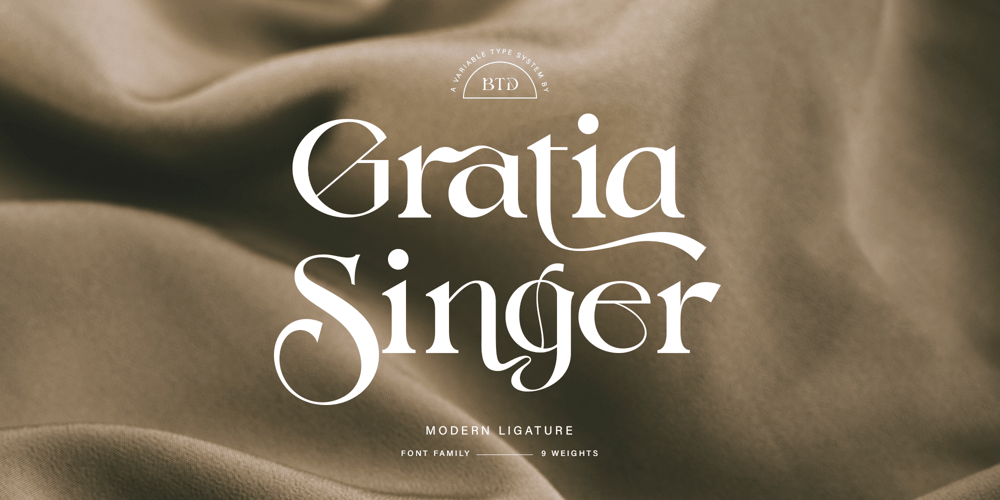
Gratia Singer
Gratia Singer font
Gratia Singer Font Family was designed by Eric Kurniawan and published by Burntilldead. Gratia Singer contains 9 styles and family package options. Such an honor to introduce our new font family Gratia Singer, a serif font with modern ligature style. Highly recommended font for you who need glamour and stylish looks, perfect choice to make your design projects; logo, branding, invitation, social media ads & website have classy looks, just type and add this font….abra ca da bra! it’s magic